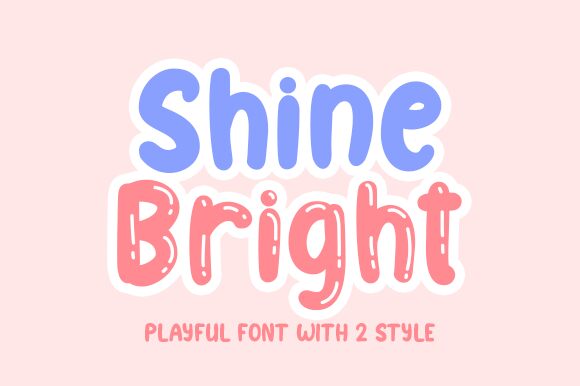
Shine Bright Inline is a vibrant and playful display font designed by Risma Ramawi. Its cartoon style adds a touch of whimsy to any project, making it perfect for children's books, comic strips, or even digital marketing campaigns. Whether you're looking to add some personality to your website or create eye-catching signage, Shine Bright Inline is sure to make an impact. With its bold lines and cheerful curves, this font will help your message shine bright and stand out from the crowd. So why not unleash your creativity and give Shine Bright Inline a try? Your audience will thank you for it!
Shine Bright Inline